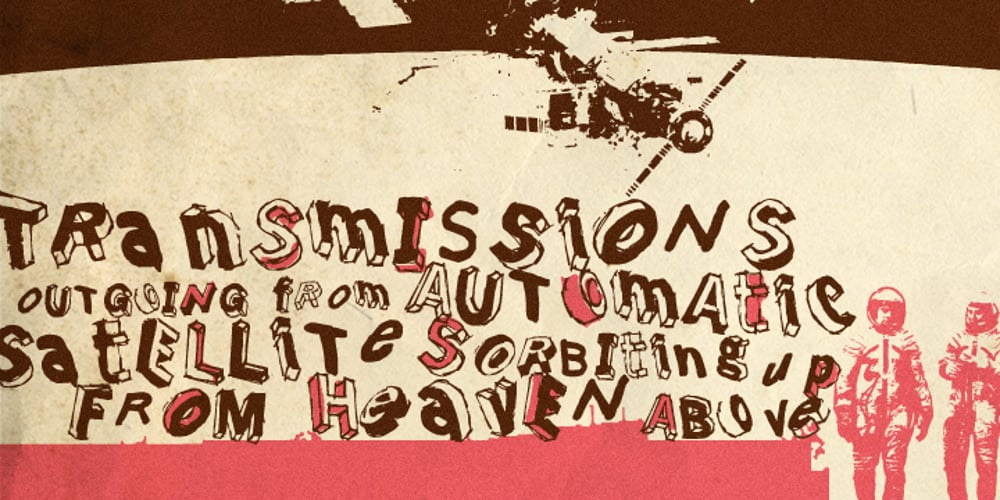
Dimentia Font Family was designed by Michael Wallner and published by The Type Fetish. Dimentia contains 5 styles and family package options. Dimentia is a twisted, hand drawn, dimensional, layered sans serif typeface. What more do you need?